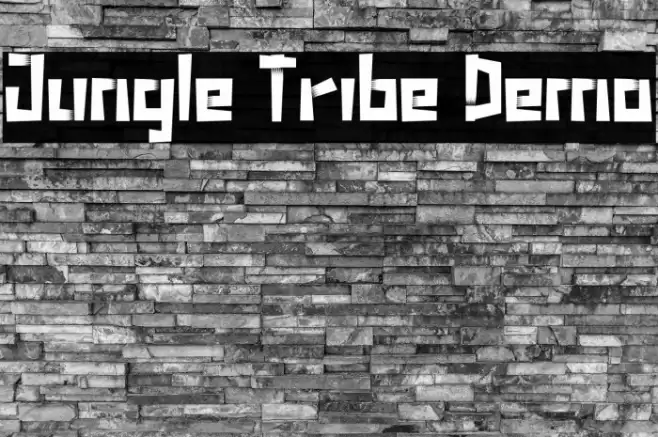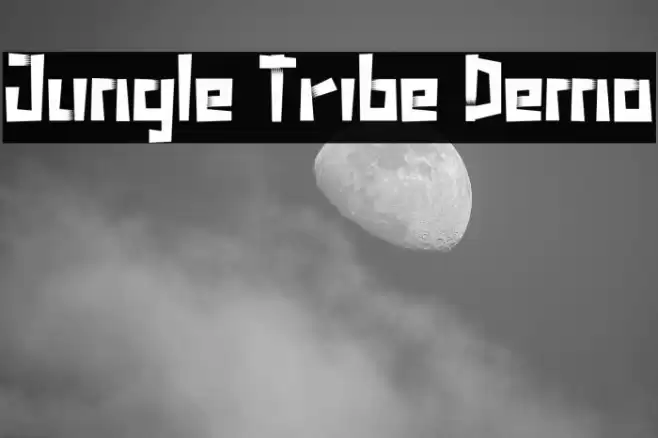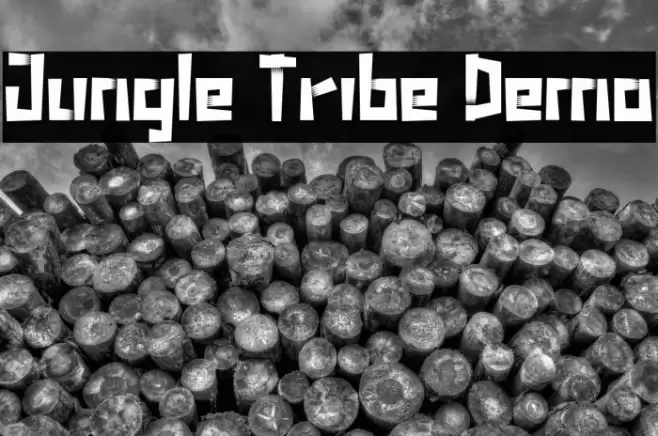
Jungle Tribe Demo Font
Jungle Tribe Demo Description
This font features a bold and dynamic style with a tribal-inspired aesthetic. The characters are designed with sharp, angular edges and a unique pattern that resembles brush strokes or tribal markings. The uppercase and lowercase letters maintain a consistent design, creating a cohesive look throughout the typeface. The numerals and special characters follow the same stylistic approach, ensuring versatility across different uses. This font's distinct appearance makes it ideal for projects that require a strong visual impact and a sense of adventure or cultural depth.
A bold, tribal-inspired font with sharp, angular edges and brush-like patterns from Regular fonts.
- Proposed Projects: Ideal for branding, posters, event flyers, and any project seeking a bold, adventurous aesthetic.